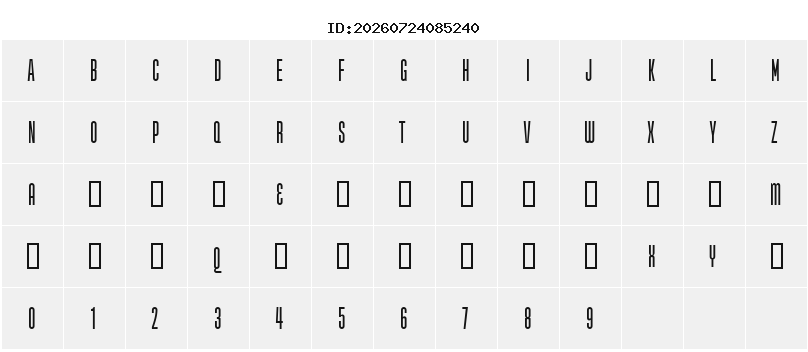
Executive Producer Preview
• Font Name: Executive Producer
• Full Font Name: Executive Producer
About Executive Producer.ttf
Executive Producer.ttf is a modern, elegant sans-serif font designed for ultimate readability and visual harmony. Perfect for branding, headlines, web design, and print materials.